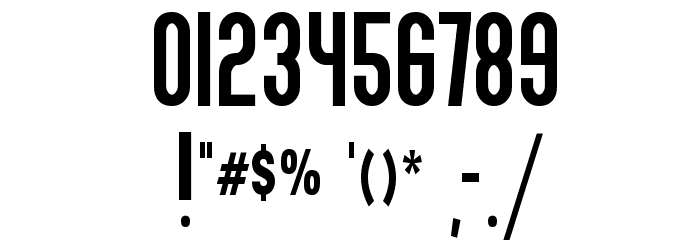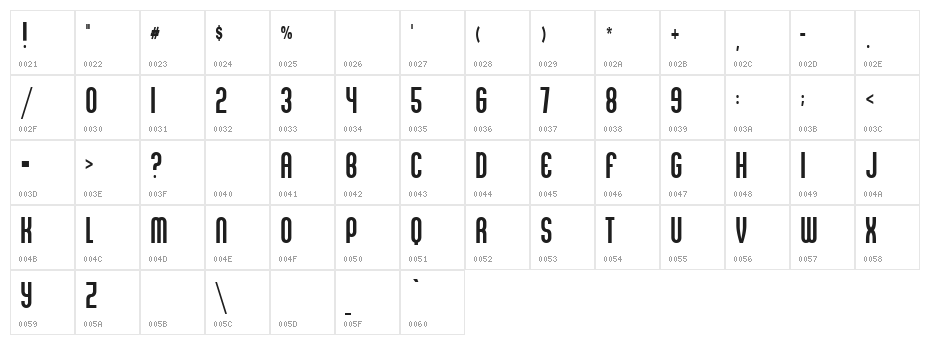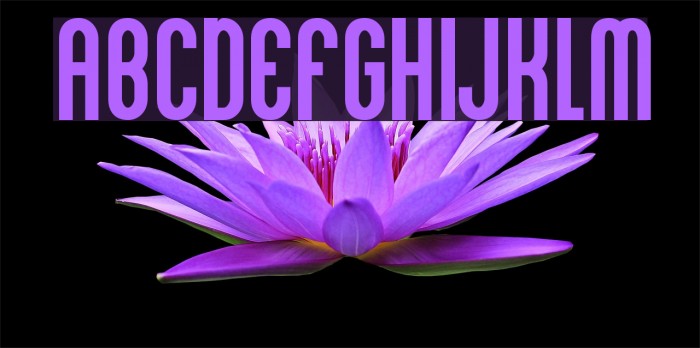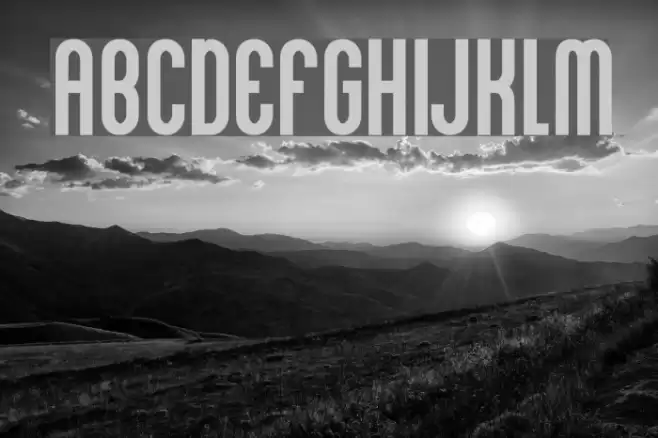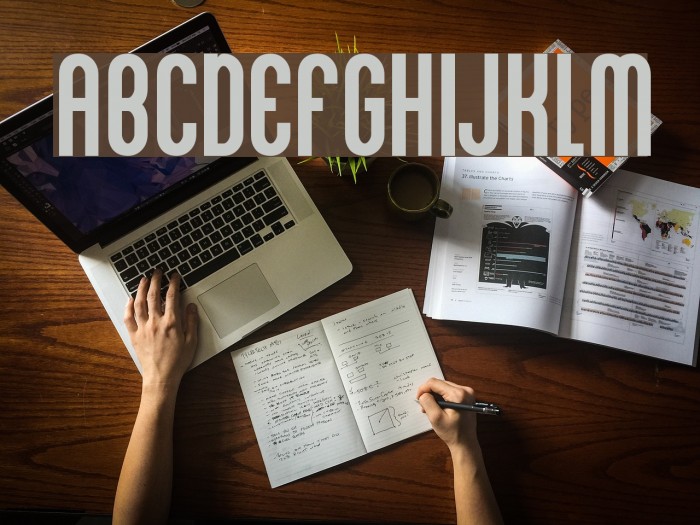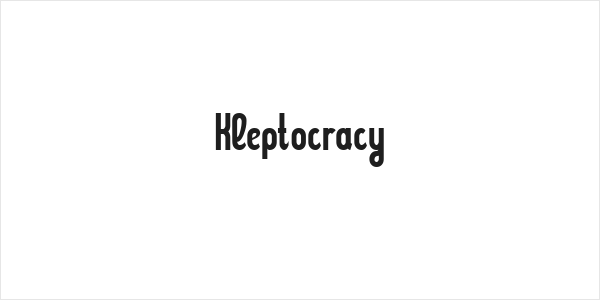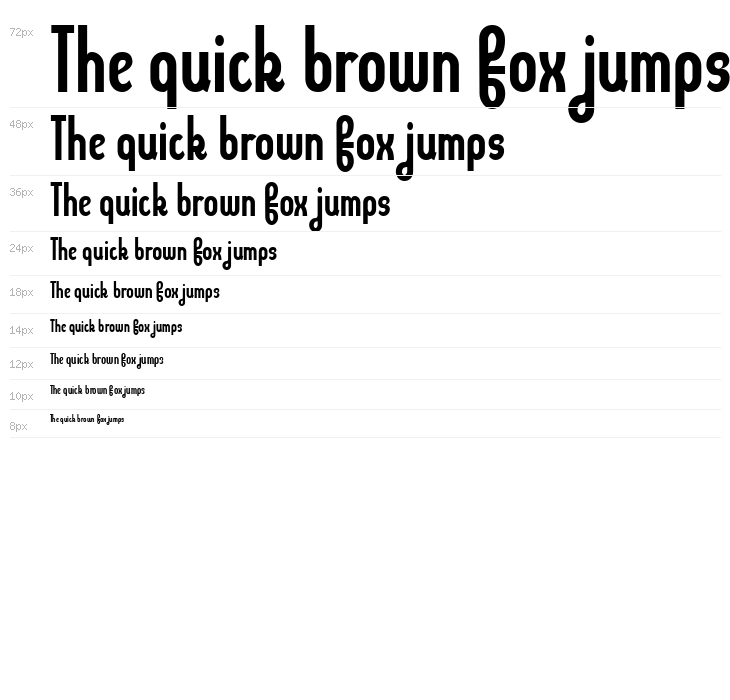
Kleptocracy Font
Kleptocracy Description
This font features a bold and rounded style with a modern and playful appearance. The uppercase letters are tall and slightly condensed, giving a strong presence, while the lowercase letters maintain a consistent and harmonious flow. The numerals are clear and easy to read, matching the overall aesthetic of the font. Special characters are well-integrated, maintaining the rounded and bold characteristics. The font's design is both approachable and assertive, making it suitable for a variety of creative applications.